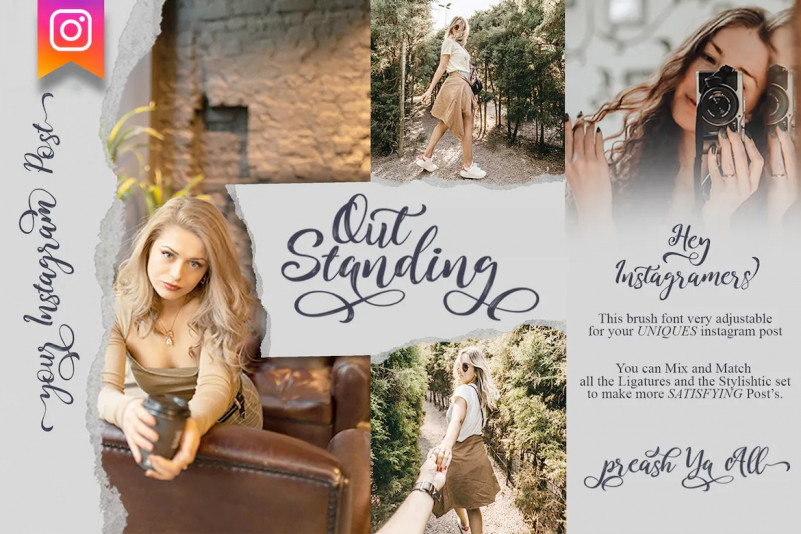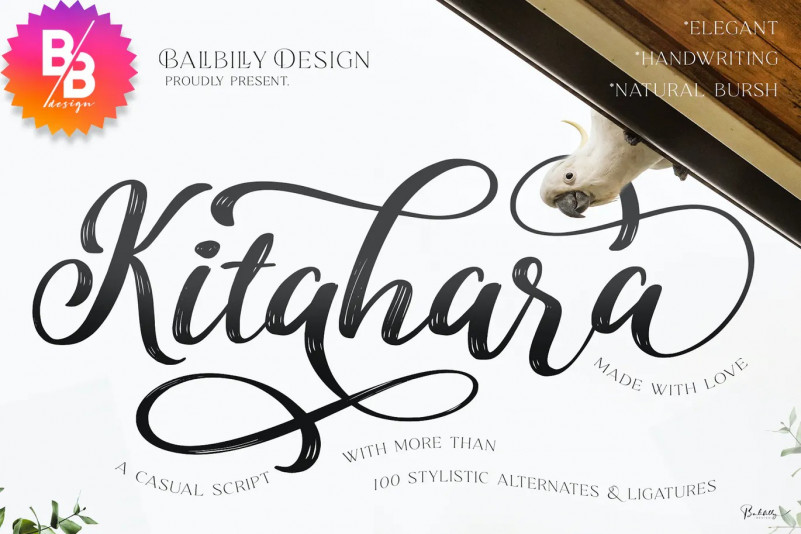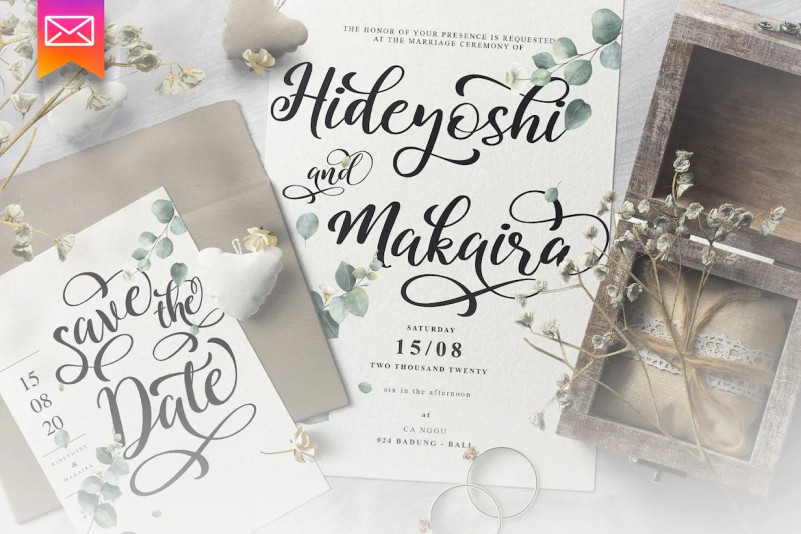
Kitahara Font
A charming, unique, strikingly versatile font. Inspired by the beauty of Japanese culture. Kitahara allows you to create beautiful hand-made typography in an instant. Kitahara is suitable for use in many design forms and is guaranteed to make your text stand out. It can be used in magazines, postcards, logos, websites, DIY Projects, invitation cards, Instagram stories, quotes, wedding projects, and much more. Kitahara provides a perfect balance of casual yet captivating lettering for your design projects. In the future, the font will evolve with alternative styles, swash, ligature, or a new style of Kitahara.